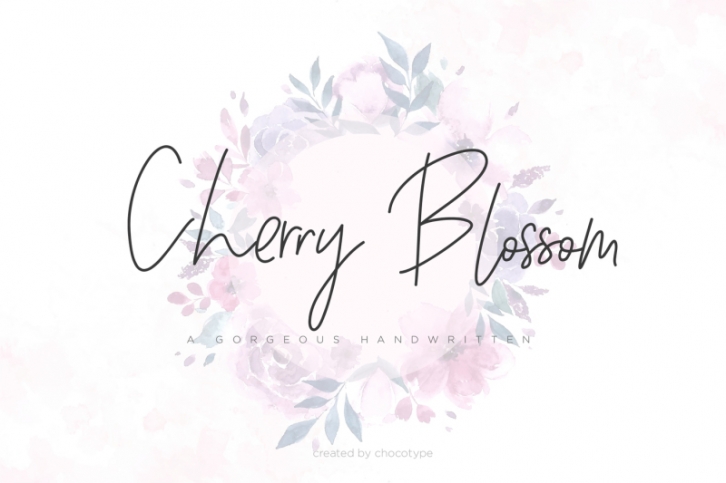
Introducing Cherry Blossom Script :)
Cherry Blossom Script is an elegant, decorative, feminine font. With uppercase, lowrcase, and alternates letters ideal for your wedding monograms and logos. Use this font for wedding invitations, branding, packaging, magazines, florist shops, social media, restaurant menus, greeting cards, instagram, invitations, signatures, watermarks, titles, birthday invitations, handwriting and many more. With multilungual support! :)